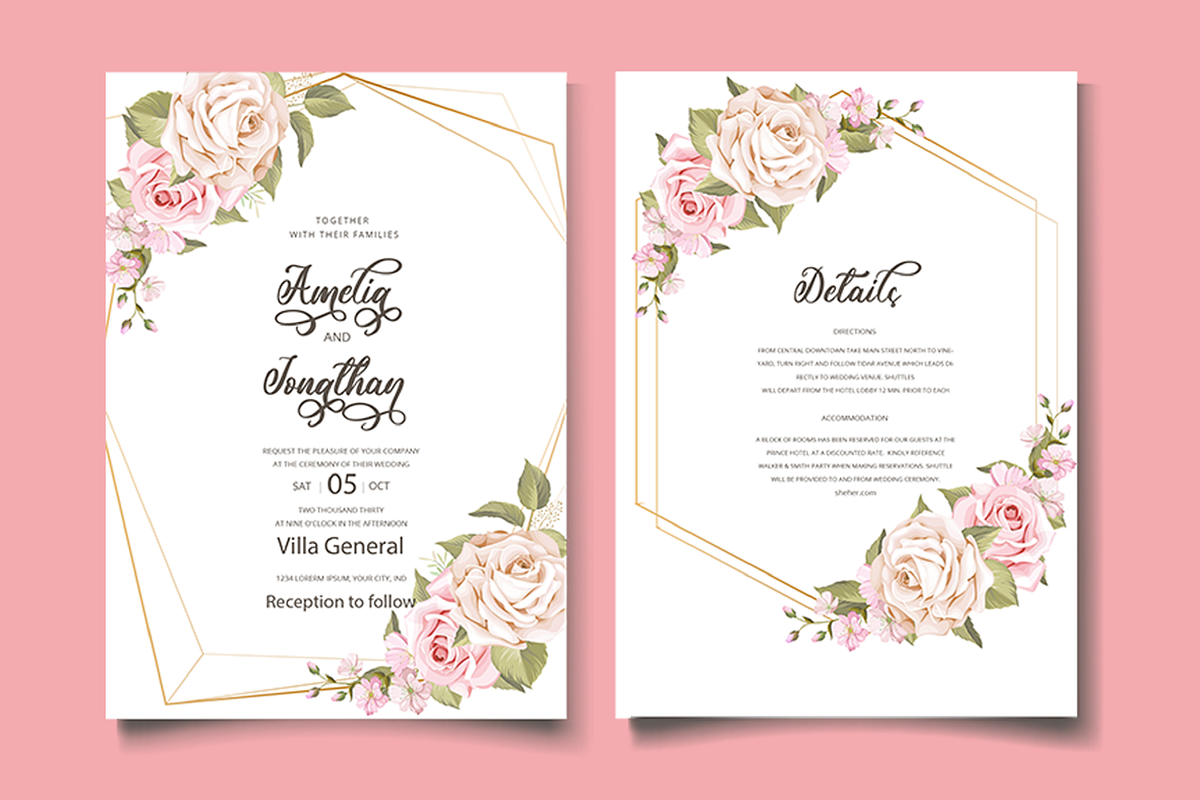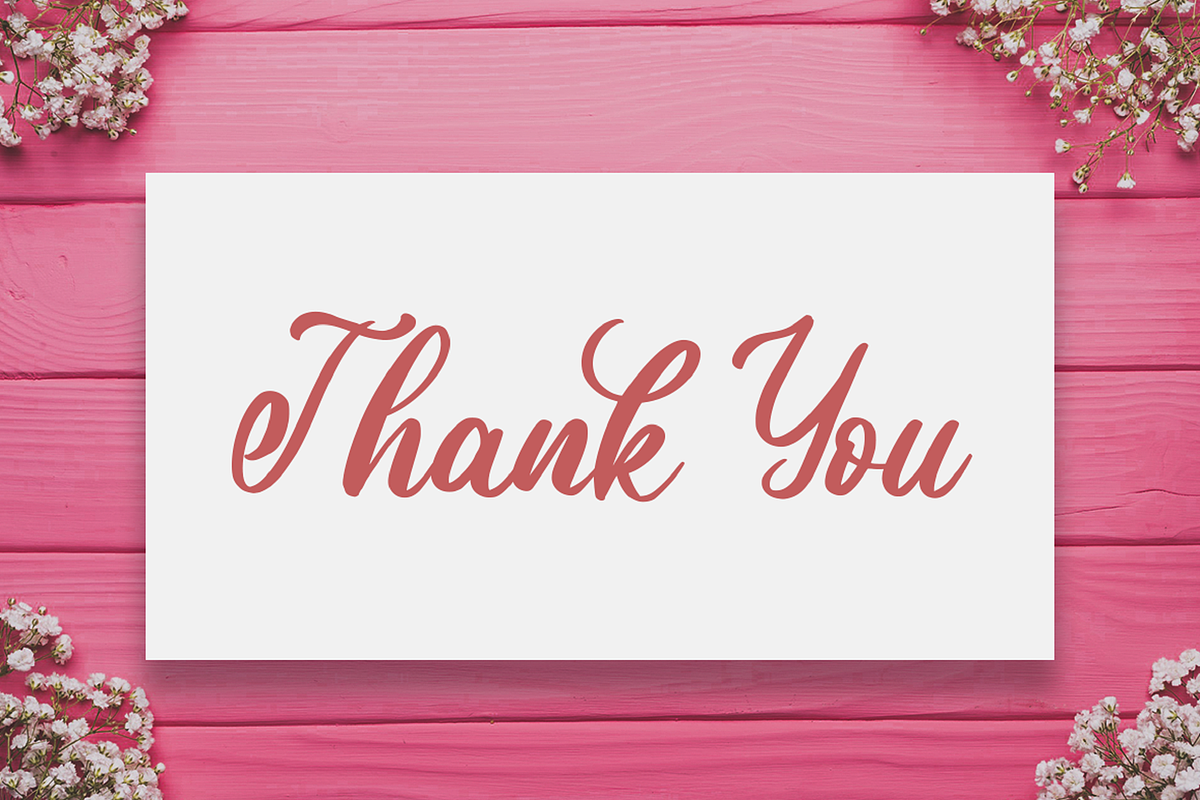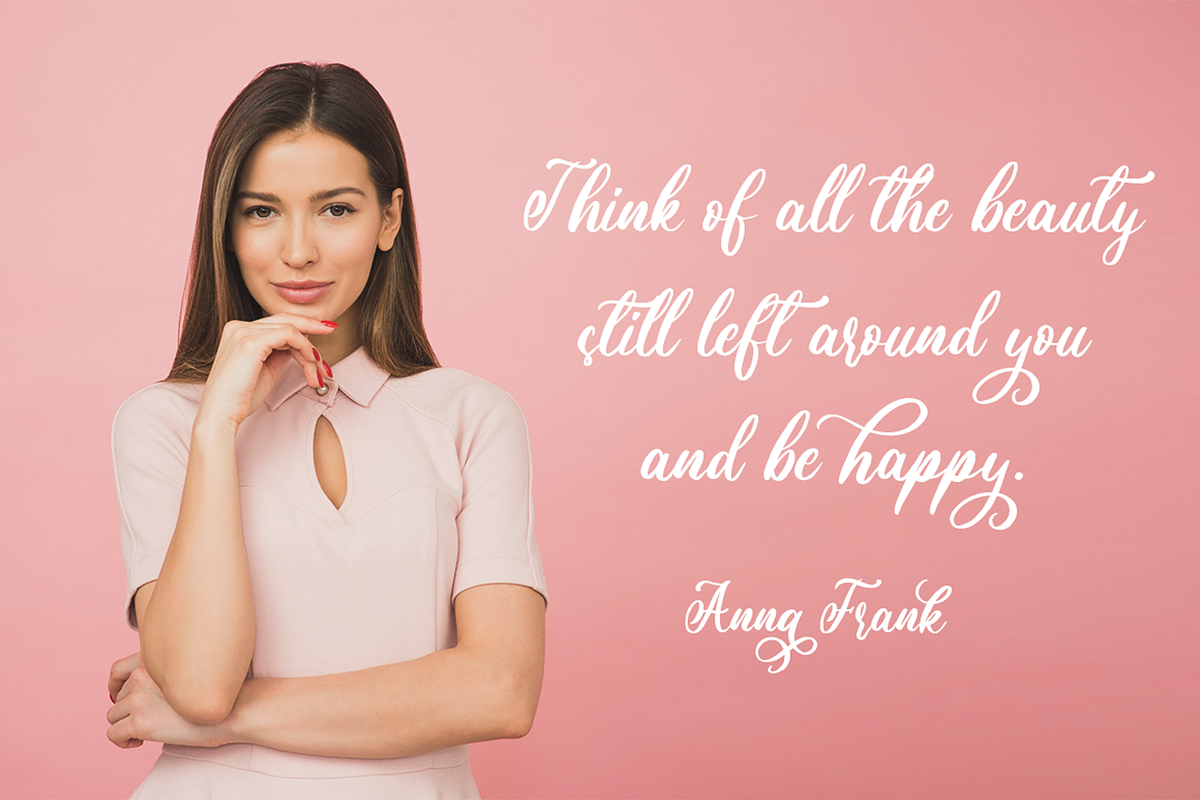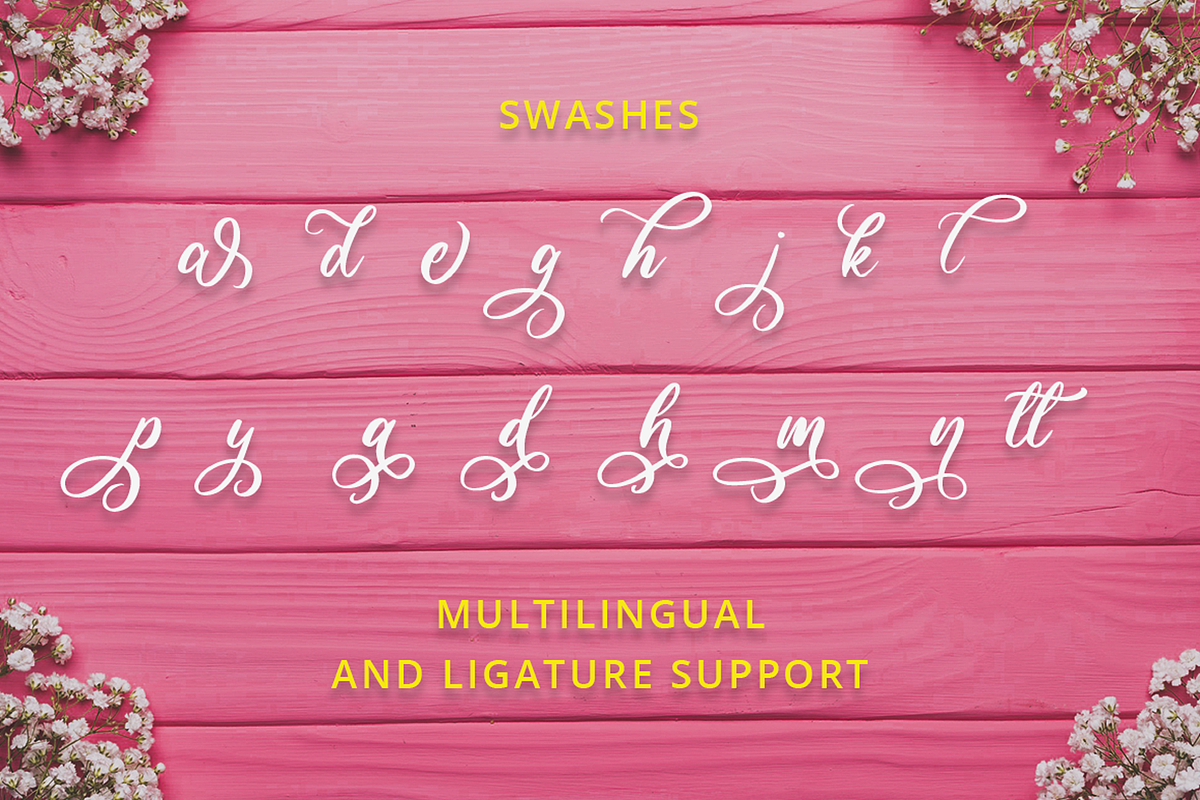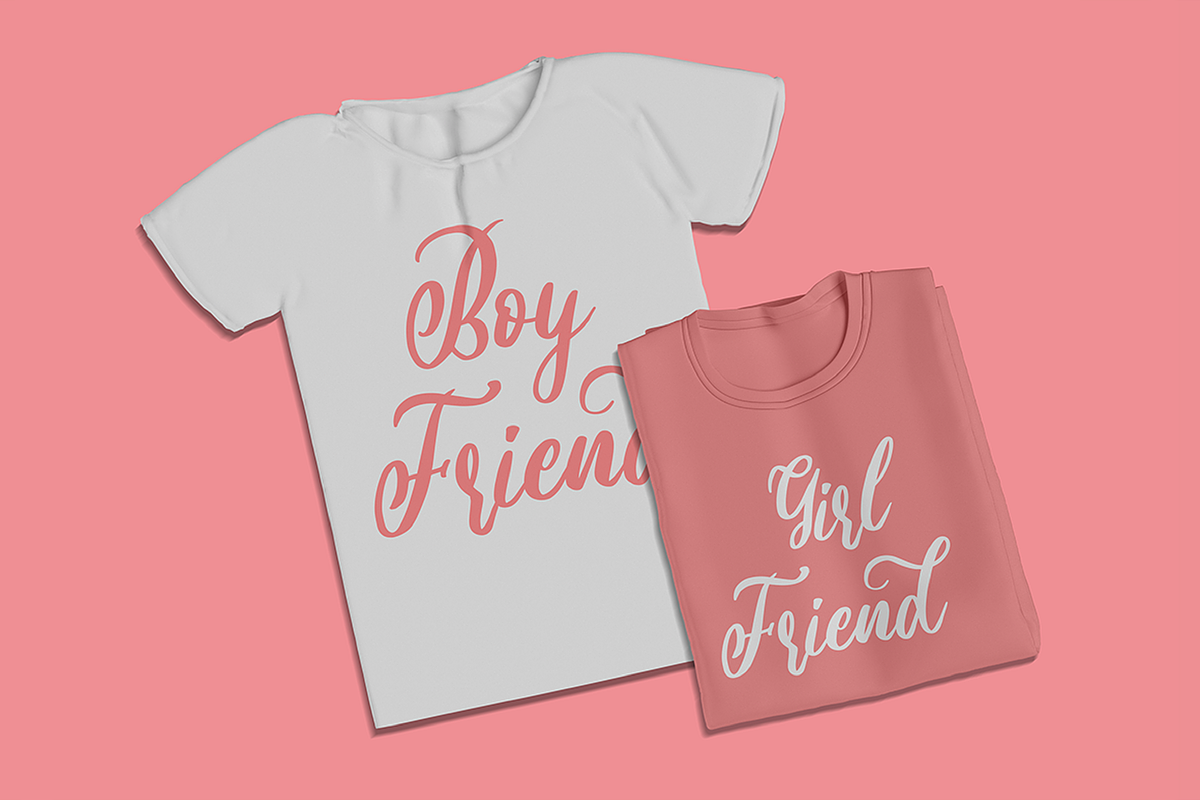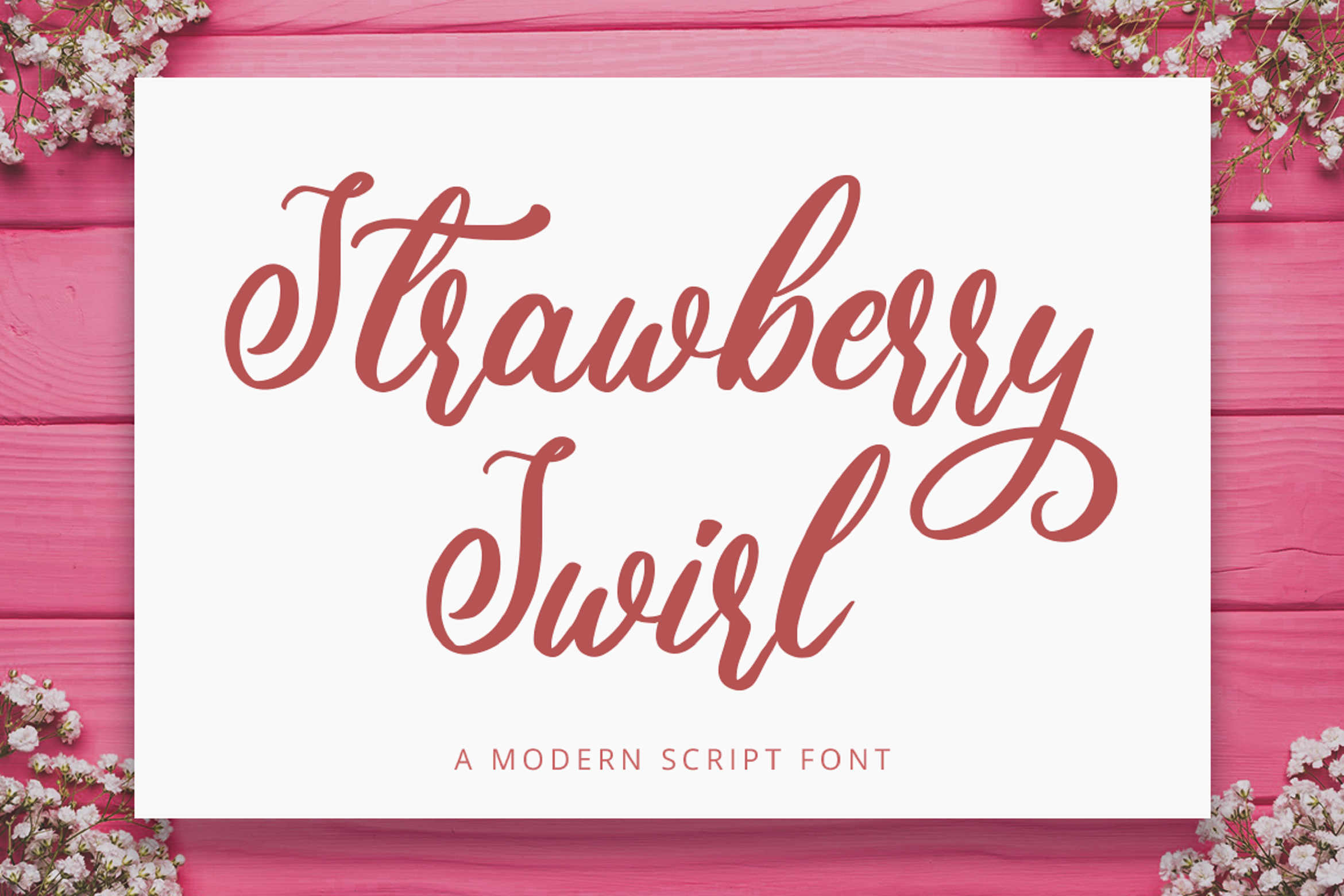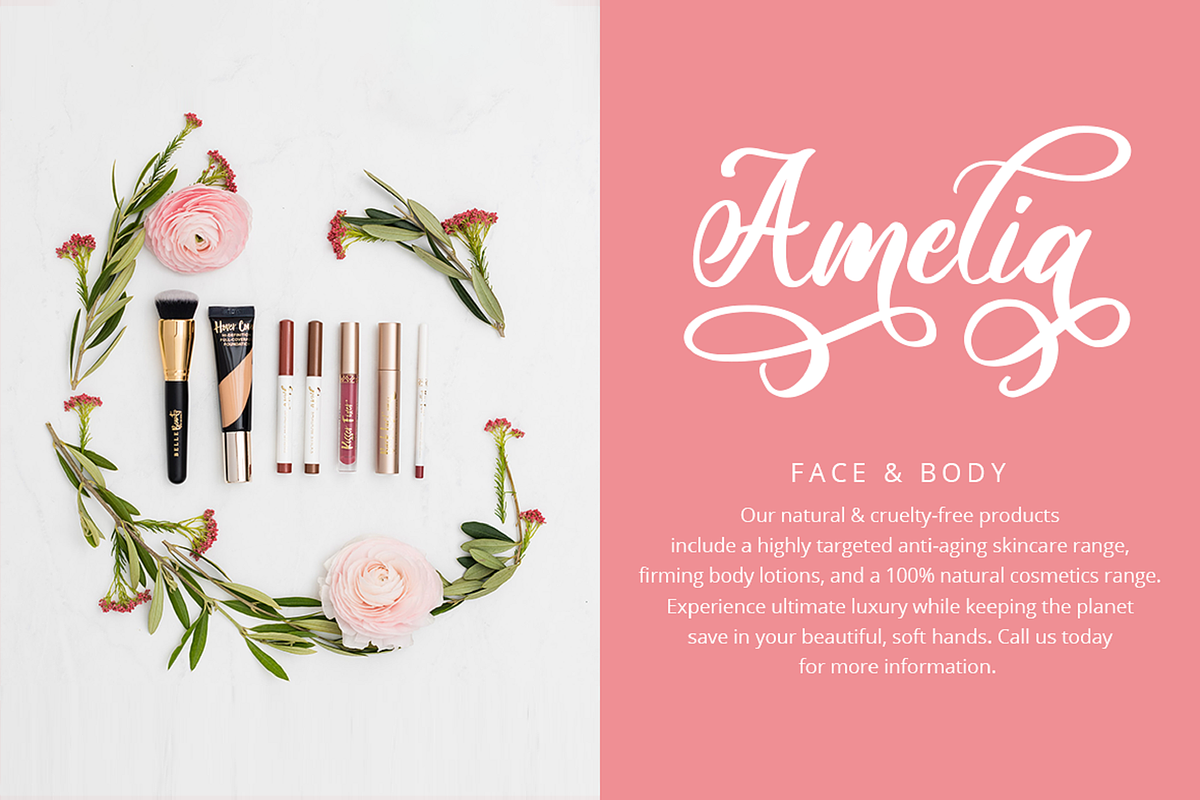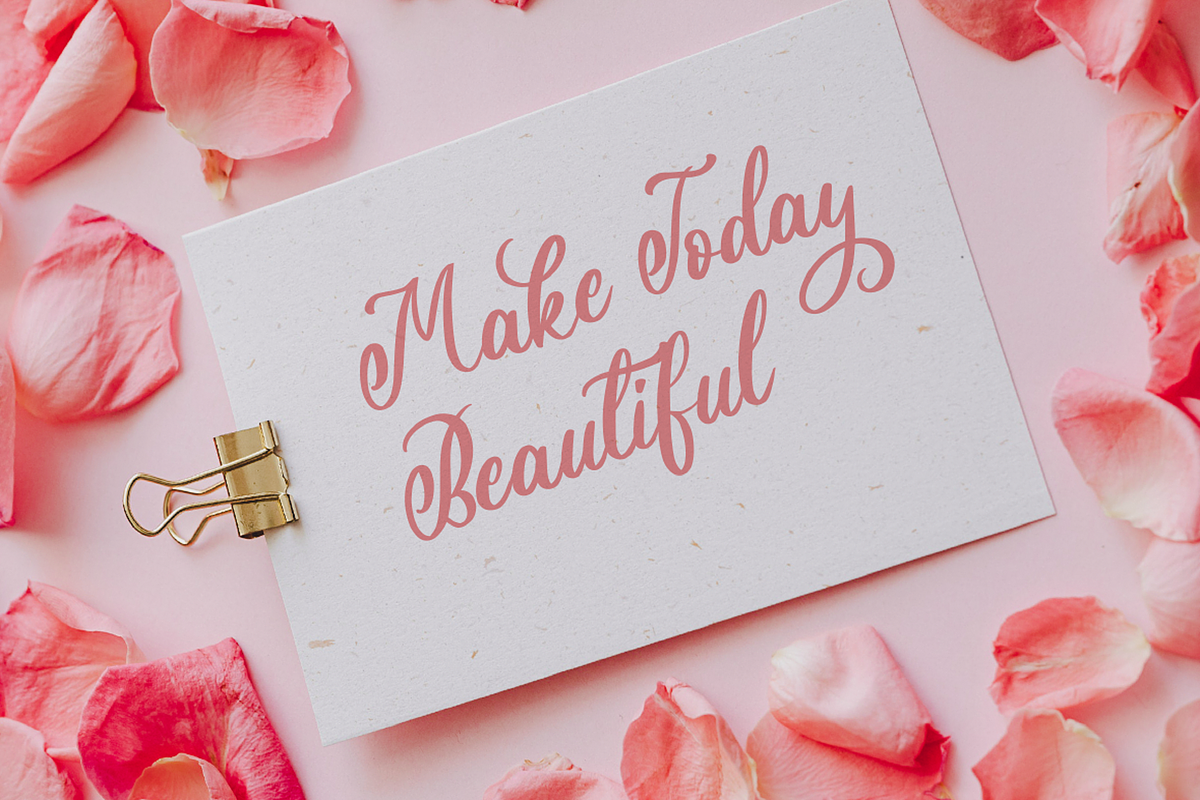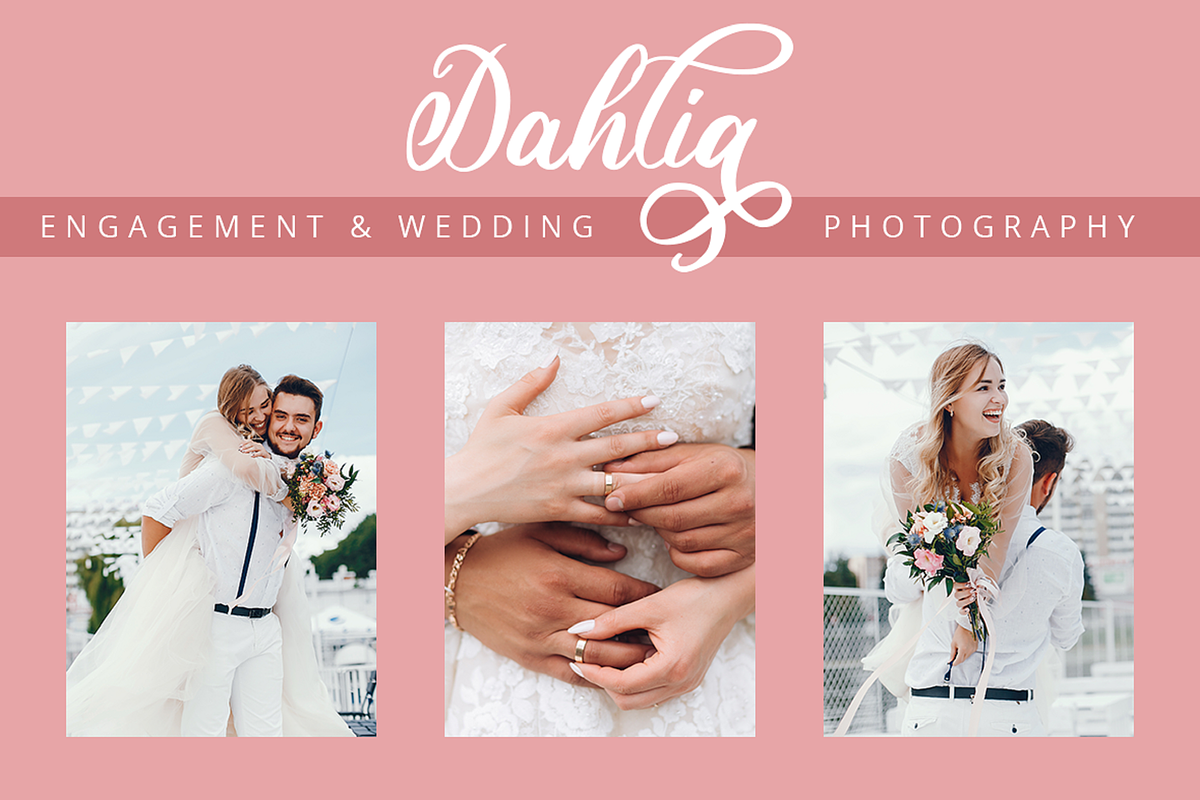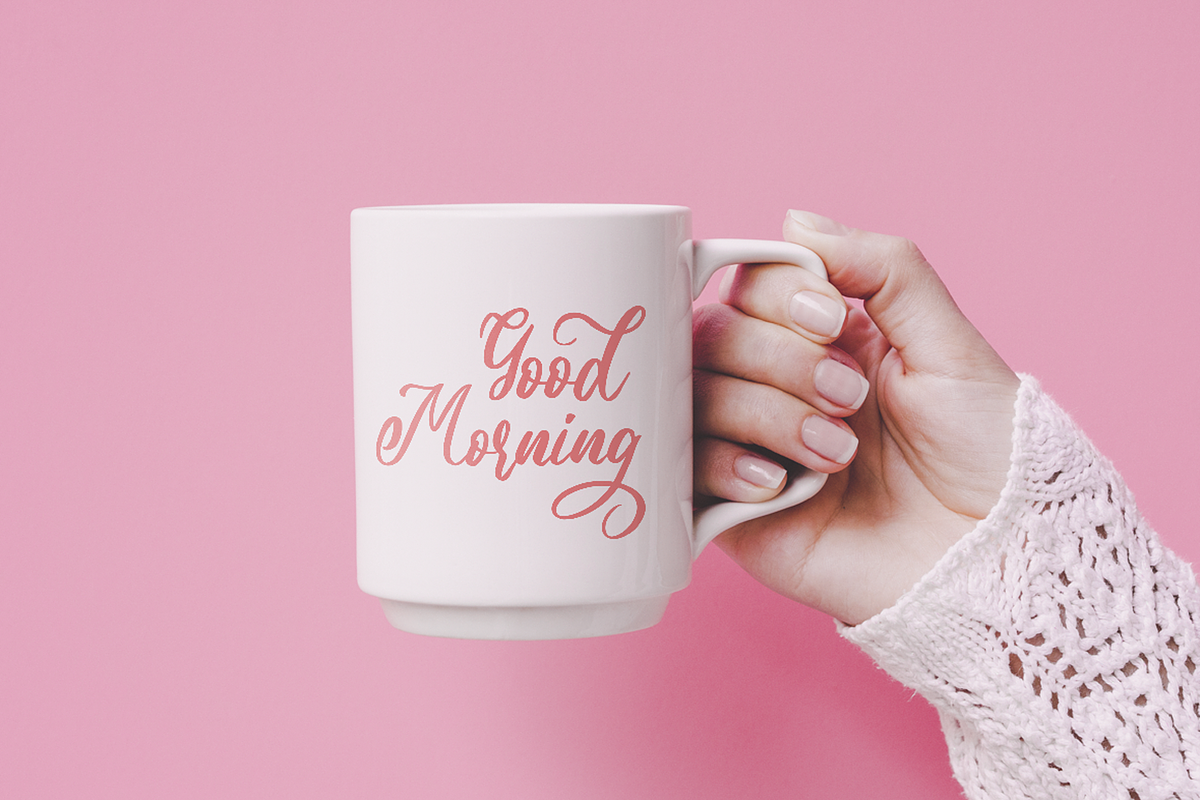
Script Font
Strawberry Swirl
Imagine a world filled with swirls of strawberry, pops of pink, and pure joy to go around for everyone...
Are you trying to make an elegant, sweet, and stylish statement with your invitations, social media, website, or printed materials? Then grab some cotton candy, crack a smile, and get ready for a swirly day of wonders!
Introducing Strawberry Swirl - A Modern Script Font.
This gorgeous & stylish font can be used for a host of different content needs and projects. Use it for your headings, logos, business cards, printed quotes, invitations (wedding, birthday, engagement, etc.), packaging, resumes, and even your website or social media branding.
Enchant & delight your audience, clients, or guests with this versatile, stylish, and elegant font.
- Multilingual & Ligature Support
- Full sets of Punctuation and Numerals